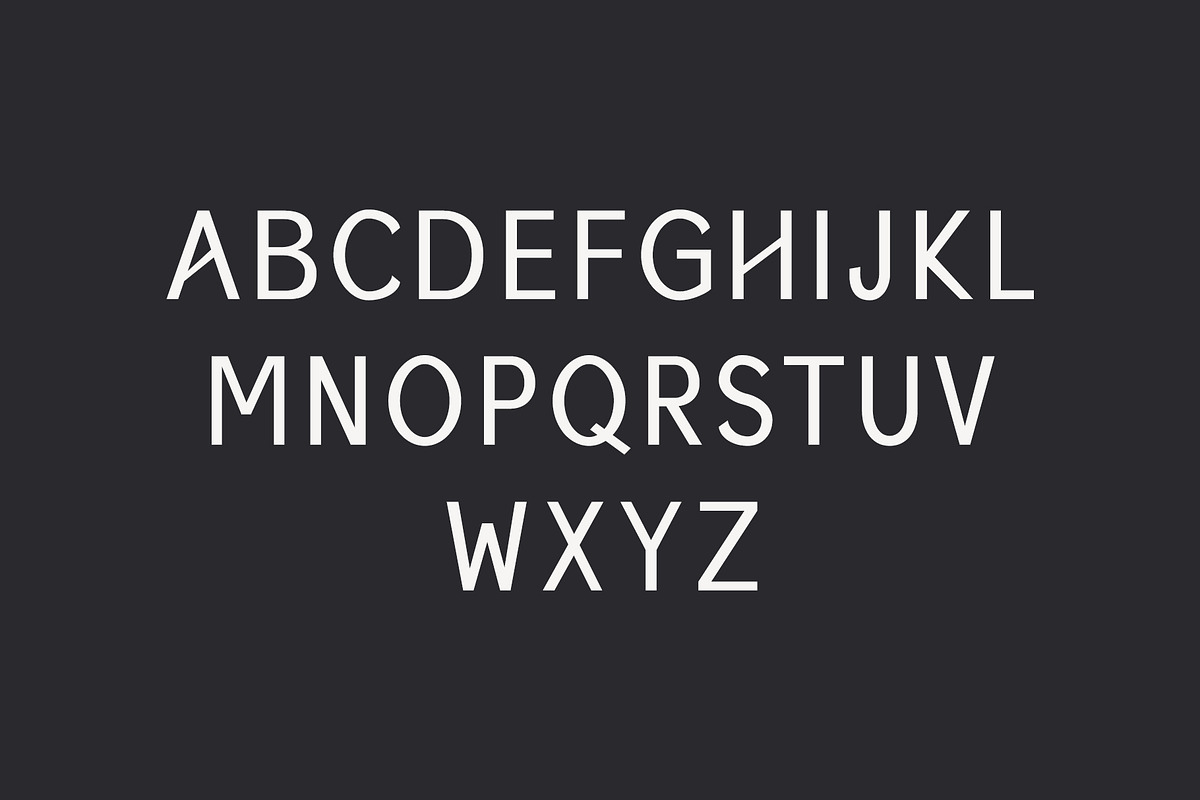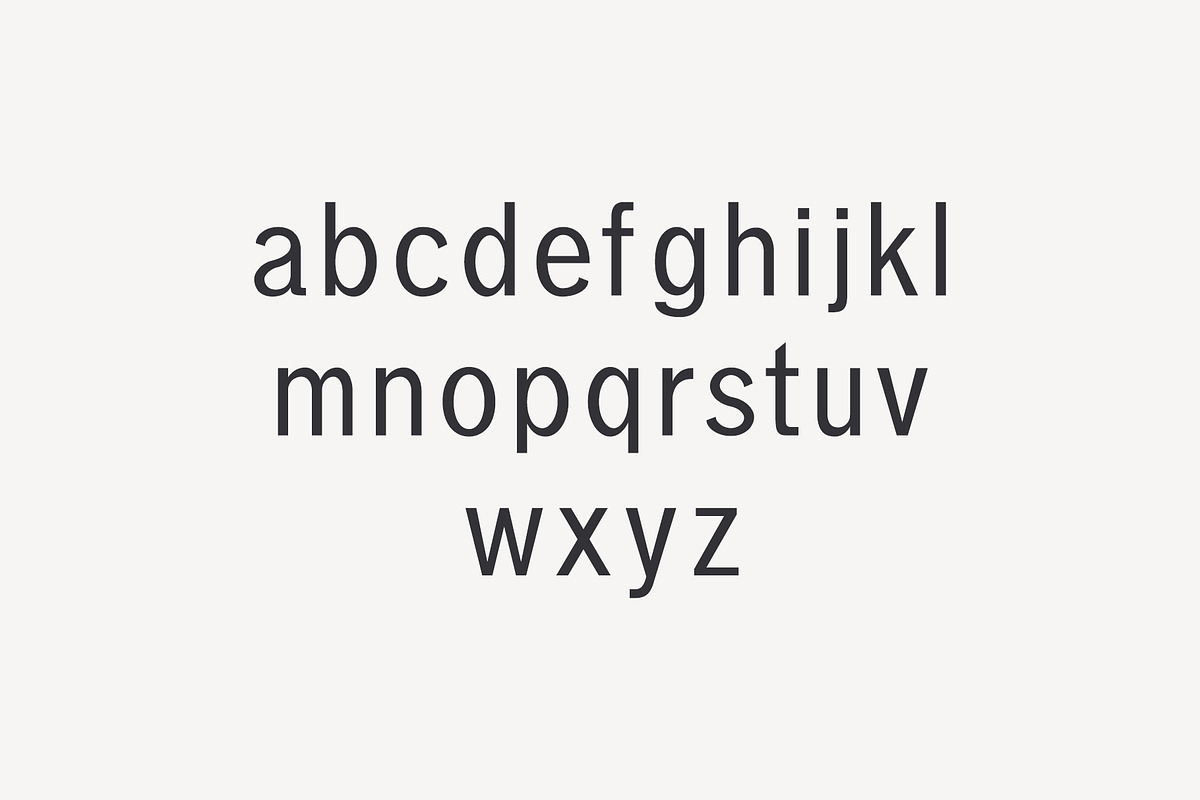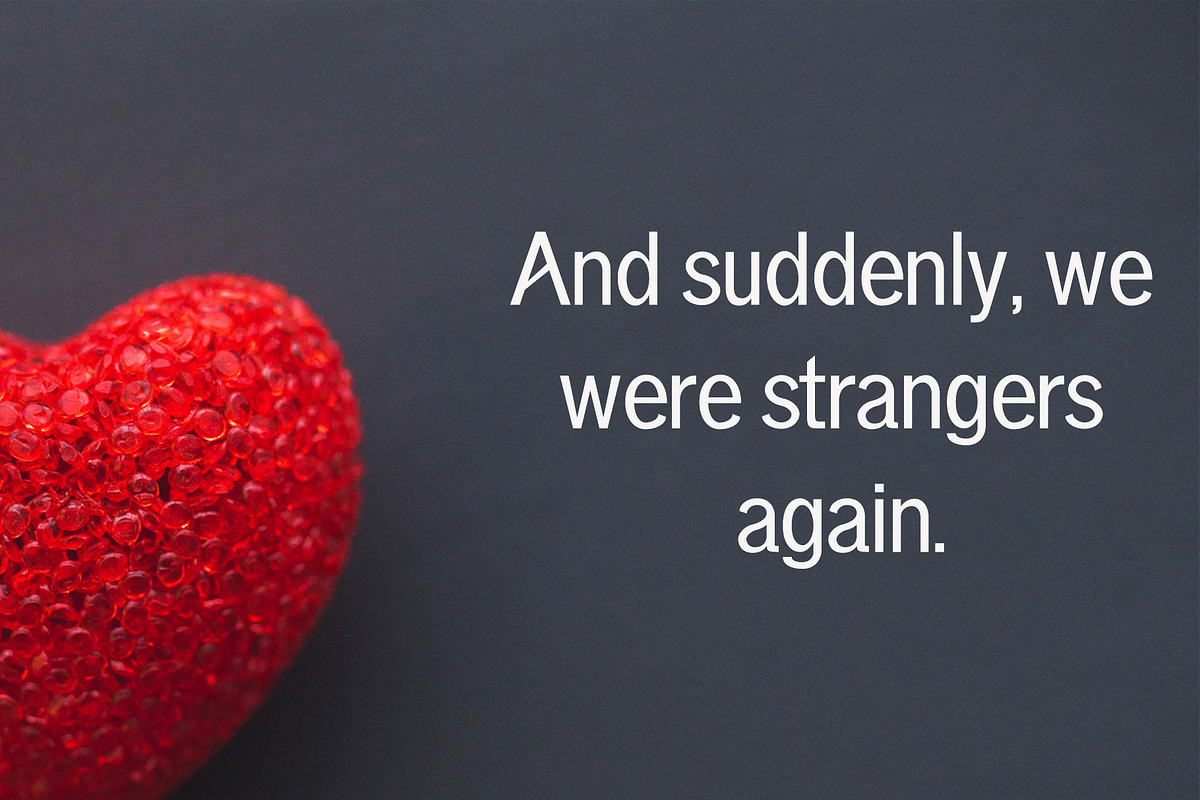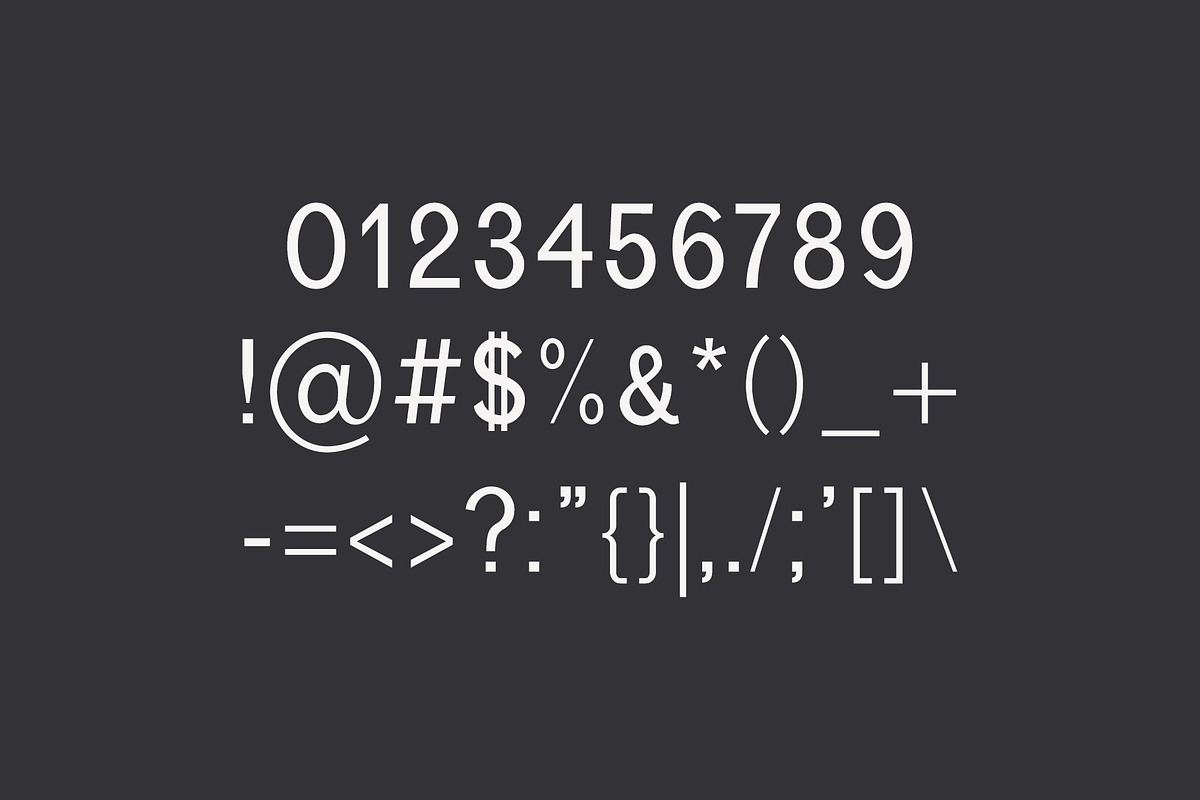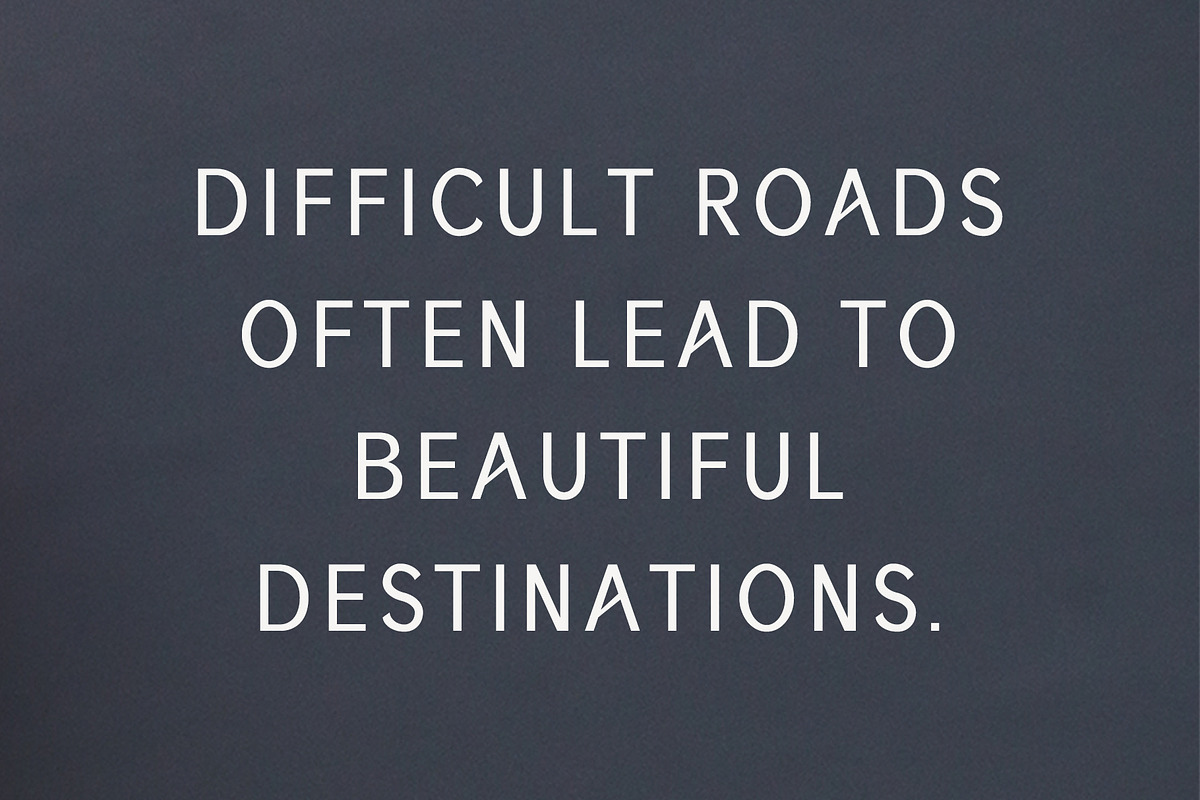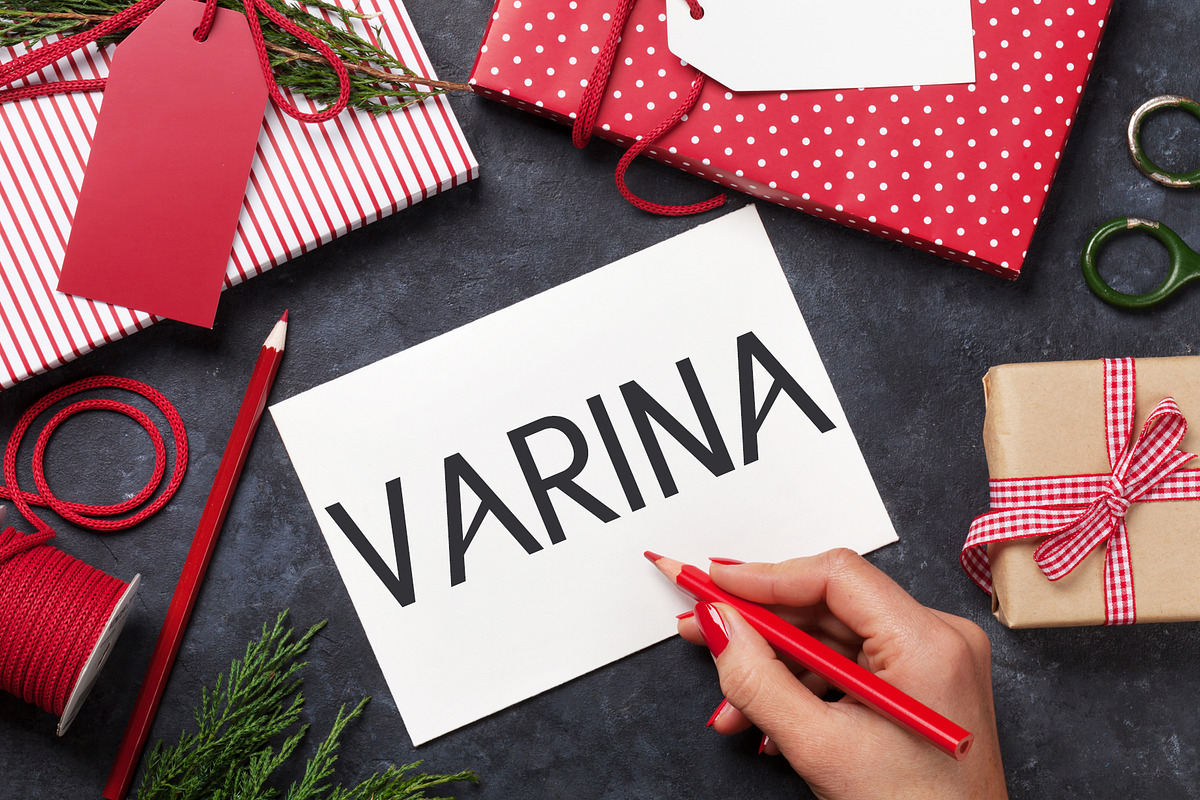
Varina Sans Serif Font Family
Varina Sans Serif Font Family by Creativetacos is a font selected for branding, posters, packaging, typography.
- Regular, Thin, Light, Outline and Bold Weights
- Varina Thin
- Varina Light
- Varina Regular
- Varina Bold
- Varina Outline
Why Varina Sans Serif Font Family is worth a look
Varina Sans Serif Font Family by Creativetacos fits naturally into Branding, posters, packaging, typography.